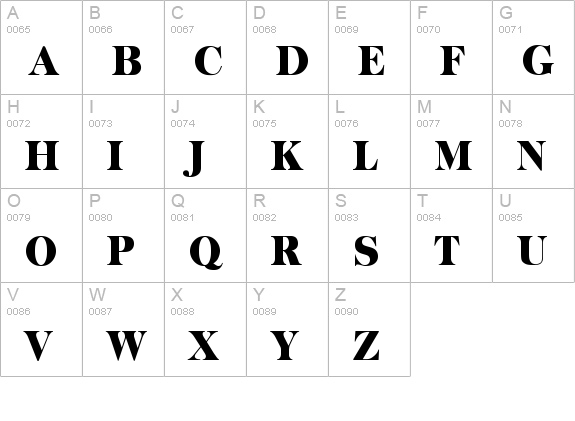
Baskerville-Heavy is a heavy, high-impact variant in the Baskerville typeface family \xE2\x80\x94 well suited to high-impact headlines, posters, and display advertising.
Baskerville-Heavy font is a timeless classic that exudes elegance and sophistication. With its bold and commanding presence, this font is perfect for making a statement in your designs. The strong serifs and clean lines of Baskerville-Heavy give it a sense of authority and professionalism, making it ideal for headlines, logos, and branding materials. The best part? Baskerville-Heavy is available for free download at FontsMarket.com. This means you can easily access this stunning font and use it in your projects without any cost. Whether you're working on a print design, website, or any other creative endeavor, Baskerville-Heavy will elevate your work and leave a lasting impression. Don't miss out on this opportunity to enhance your designs with the timeless beauty of Baskerville-Heavy font. Download it now and unleash your creativity!